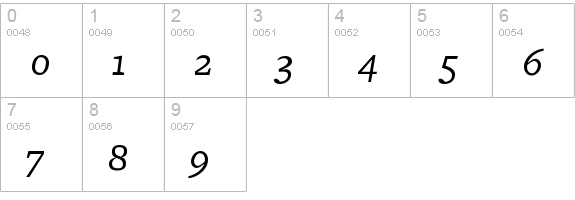
FreightMicro BookItalic is a sophisticated and elegant font that exudes a sense of modernity and professionalism. Its sleek and slender italics add a touch of sophistication to any design project, making it perfect for conveying a sense of refinement and style. The delicate curves and precise angles of FreightMicro BookItalic make it a versatile choice for a wide range of applications, from branding and advertising to editorial design and beyond. What's even better is that FreightMicro BookItalic is available for free download at FontsMarket.com. This means you can easily access this high-quality font without any cost, making it a valuable addition to your design toolkit. Whether you're a seasoned designer looking for a fresh new typeface or a beginner exploring different fonts, FreightMicro BookItalic is sure to impress with its timeless elegance and versatility. Download it today and elevate your design projects with this stunning font.